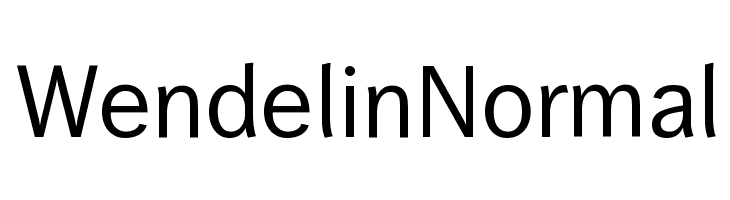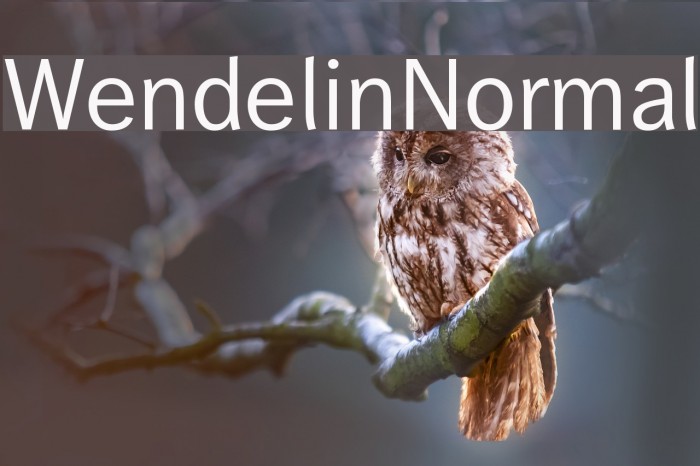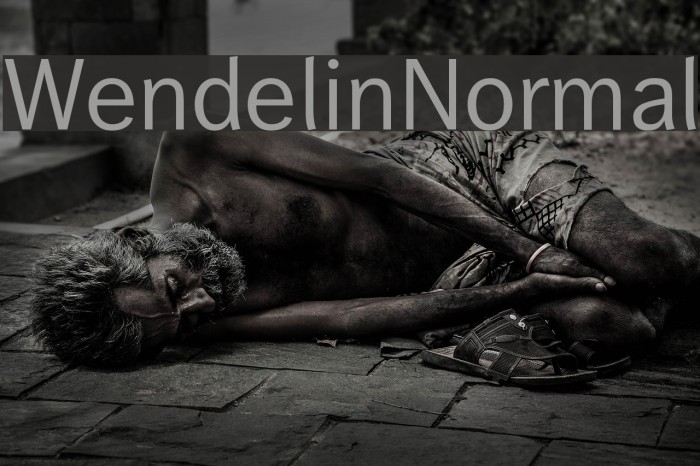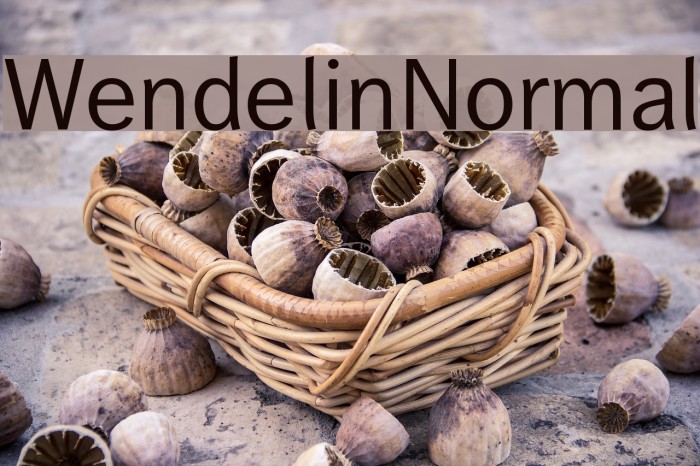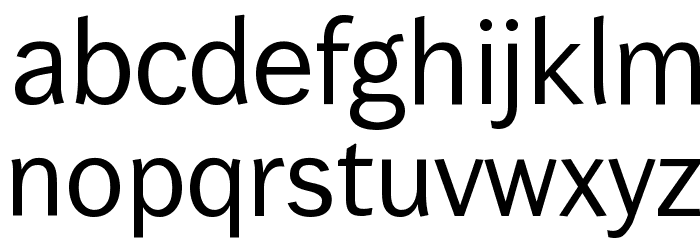
WendelinNormal Font
WendelinNormal Description
This font presents a clean and modern aesthetic with a sans-serif style, characterized by its simplicity and readability. The letters are evenly spaced, providing a balanced and harmonious appearance. The uppercase and lowercase letters maintain a consistent height ratio, ensuring uniformity across text. The font features smooth curves and straight lines, giving it a sleek and professional look. The numerals are clear and distinct, making them easily legible. Special characters are well-integrated, maintaining the overall design consistency. This font is versatile, suitable for a wide range of applications from digital to print media.
| Use Case | Headlines, Body text, Logos |
| Proposed Projects | Ideal for corporate branding, digital interfaces, print media, and editorial design. |